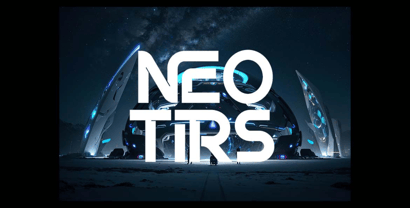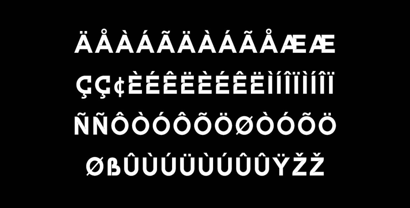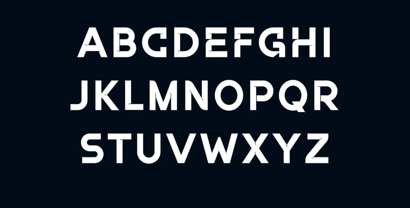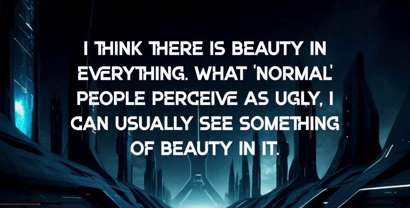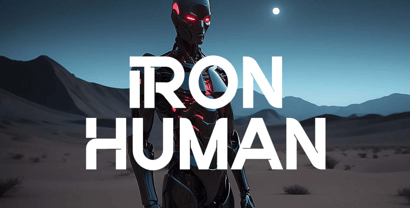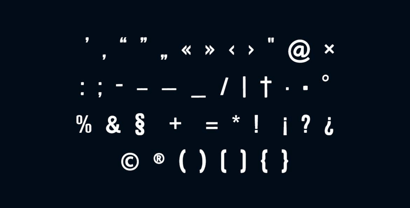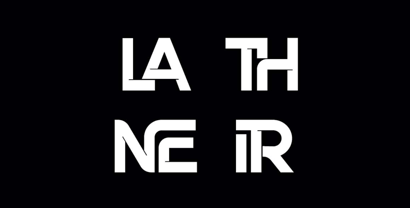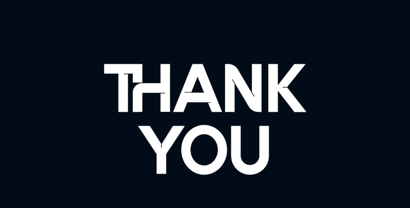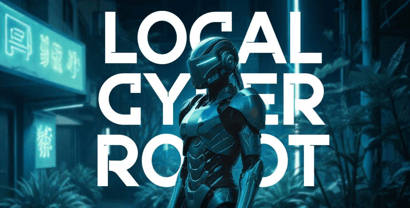
Infusive
The Infusive Font Family was designed by Hero and published by UICreative. Infusive contains 1 styles.
Introducing our new product the name is Infusive Futuristic Display Font. Infusive Futuristic Display Font that feels beautiful classy, elegant, and modern. This font is perfectly suited for a wide variety of projects, such as signature, stationery, logo, wedding, typography quotes, magazine or book covers, website headers, clothing, branding, packaging design, and more. Also, fashion-related branding or editorial design displays both masculine and feminine qualities.